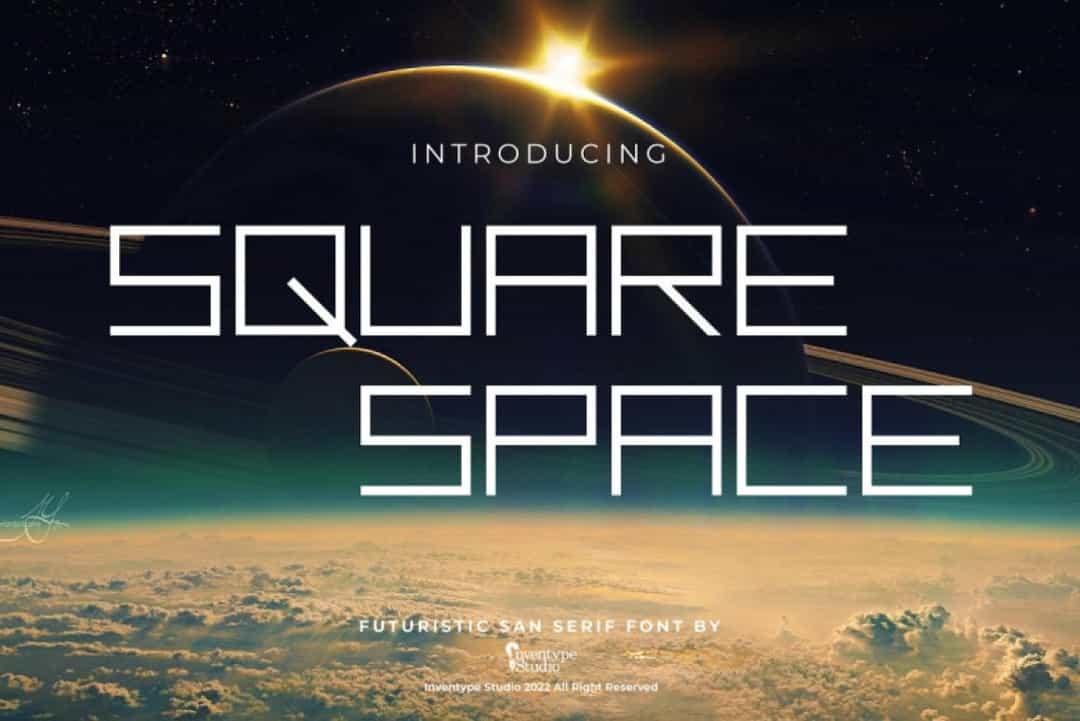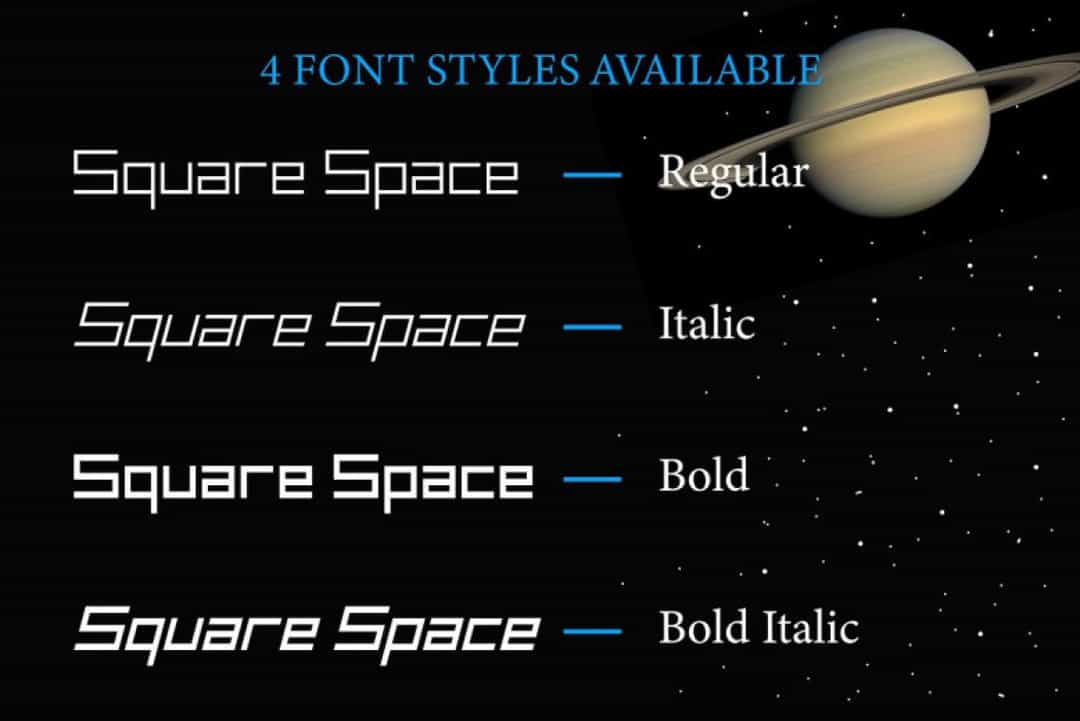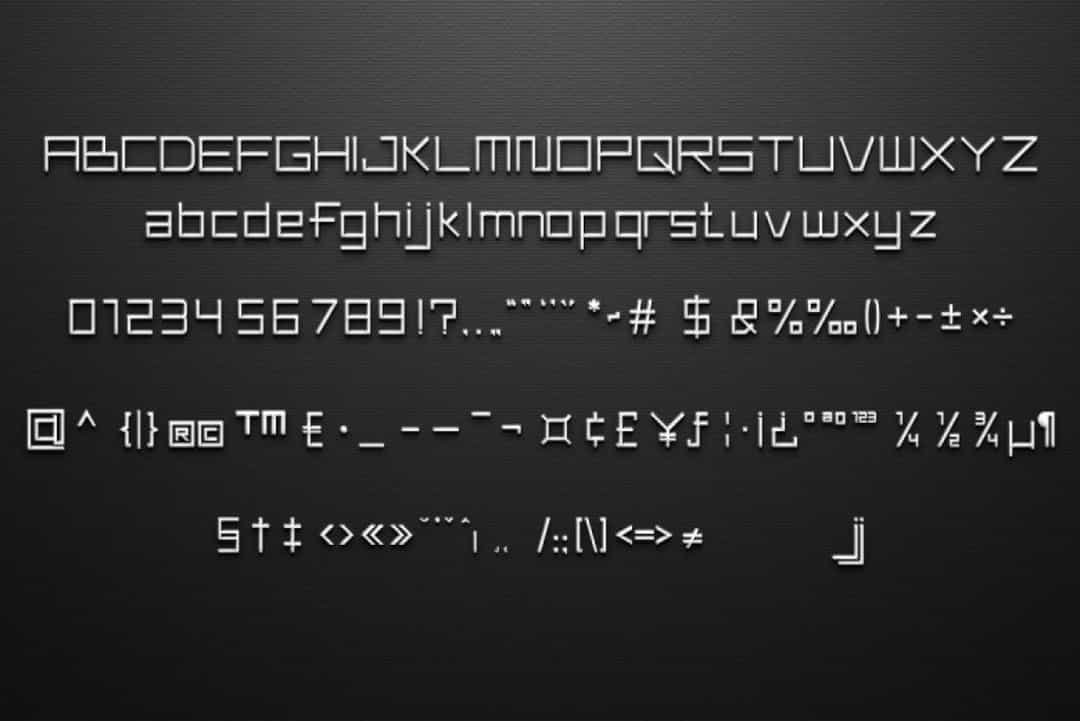
Square Space is an eye-catching font designed with modernity in mind, created using advanced technologies. Square Space will add luxurious flair to any design you create! It promises to make a bold statement!